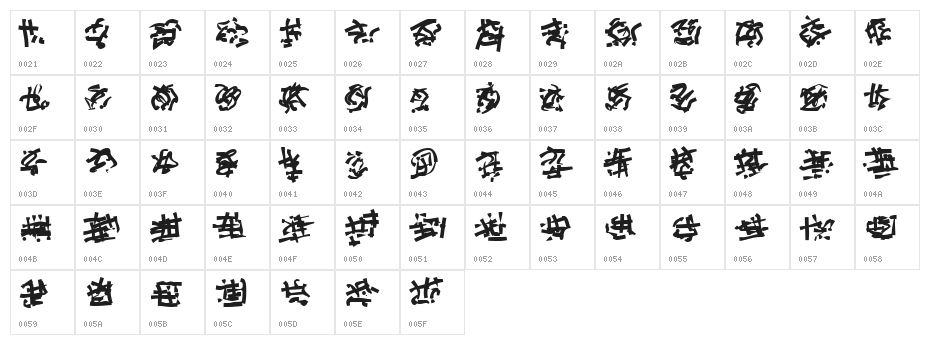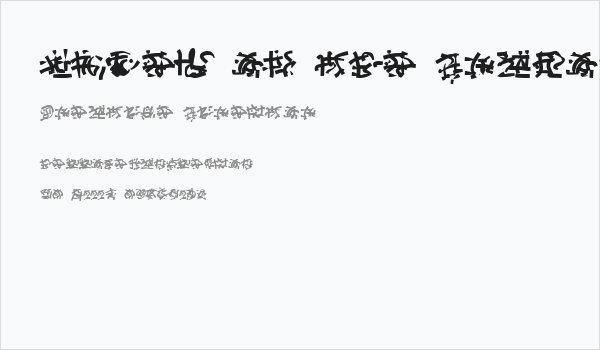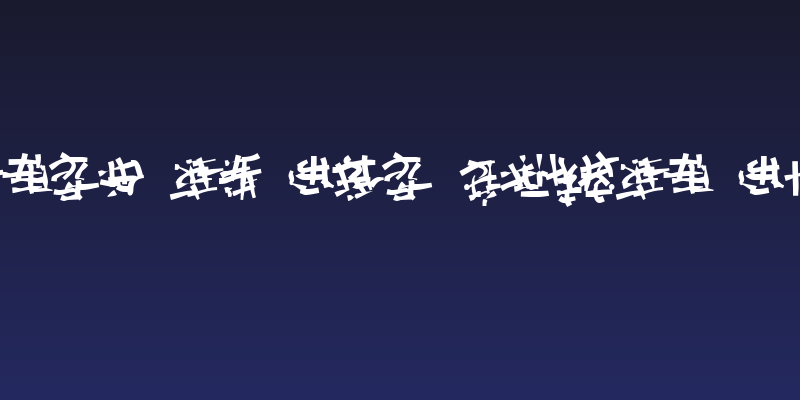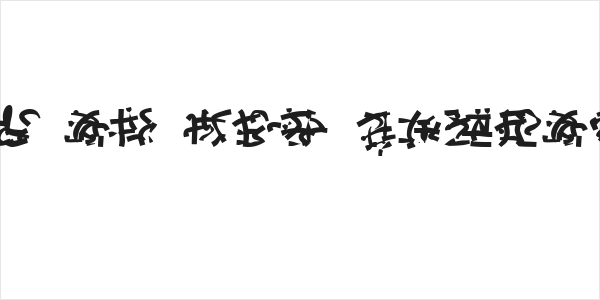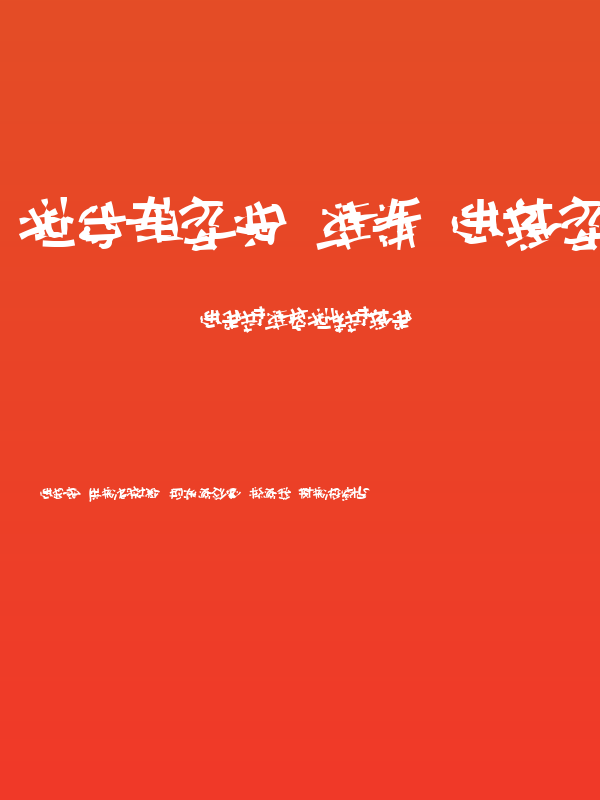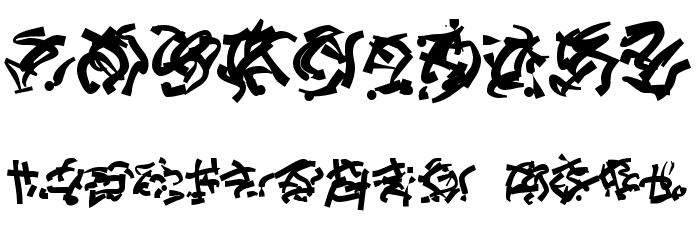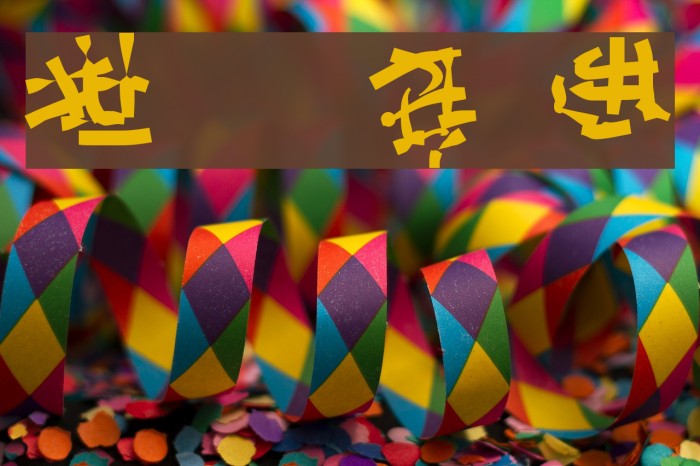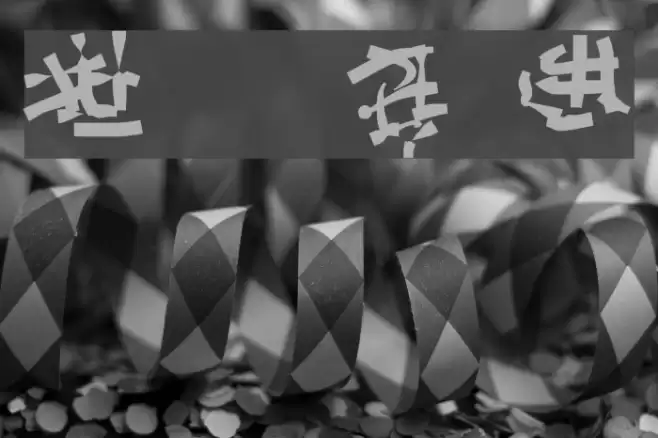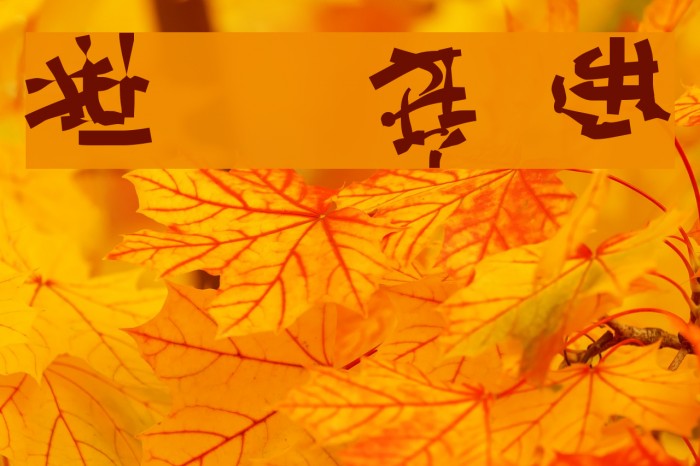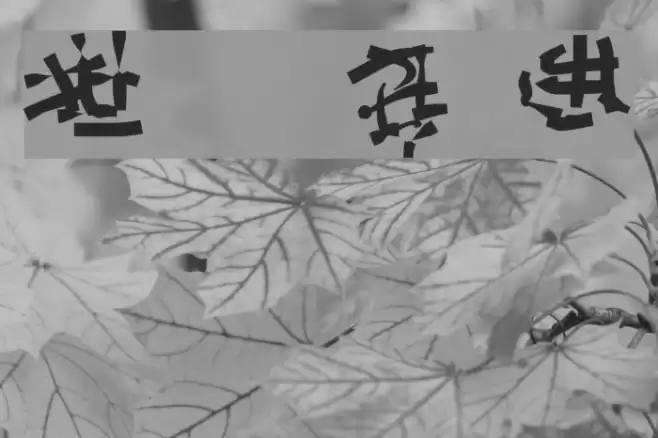
Runes of the Dragon Two Font
Runes of the Dragon Two Description
This font features a highly decorative and intricate design, reminiscent of ancient runes or mystical symbols. The characters are bold and complex, with swirling lines and sharp angles that create a sense of mystery and fantasy. The strokes are thick and varied, giving each letter a unique and elaborate appearance. This style is perfect for projects that require a touch of the fantastical or mythical, such as fantasy book covers, game titles, or themed event posters. The font's ornate nature makes it more suitable for display purposes rather than body text, as it prioritizes aesthetic appeal over readability.
| Proposed Projects | Fantasy book covers, game titles, themed event posters, mystical branding. |